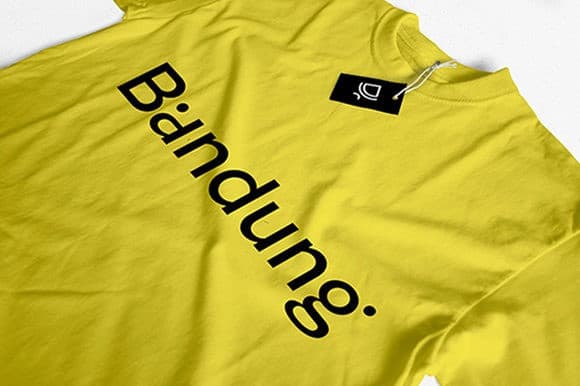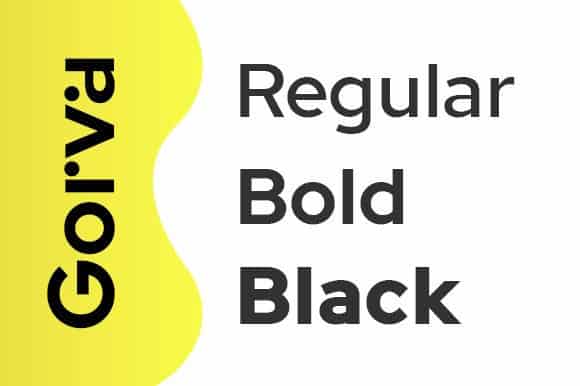
Gorva Sans Serif Font is a simple & modern sans serif font. The font has a vintage style that can be used for prints on T-shirts, Hoodies, Cups, Shirts, Stickers etc. Gorva is a geometric sans serif font. It features a modern and unique style that will take your designs to the next level!
Gorva Sans Serif Font is PUA encoded which means you can access all of the great glyphs and swashes with ease! It also features a wealth of special features including alternate glyphs and ligatures.